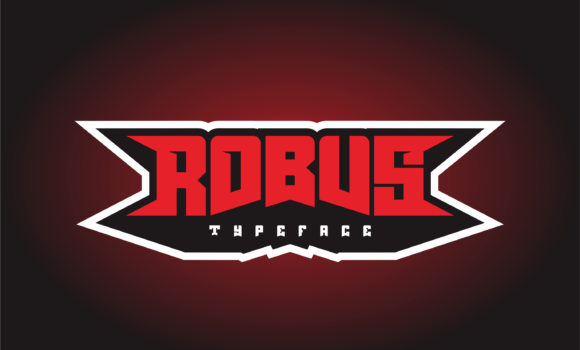
Robus Font – Free Download Introduction to Robus Font Robus is a bold and chunky lettered display font. 📸 Preview Gallery 6 images 📌 Product Name Robus Font 👤 Author Toko Laris Djaja 📂 Category Explore ⬇️ Download Robus Font